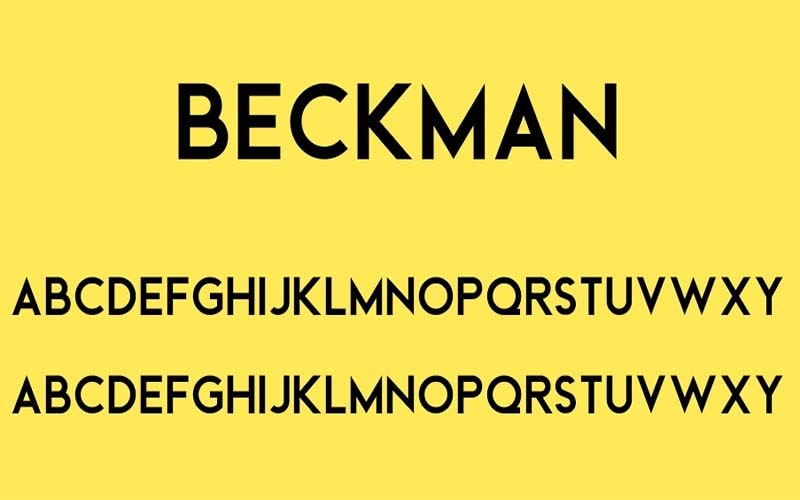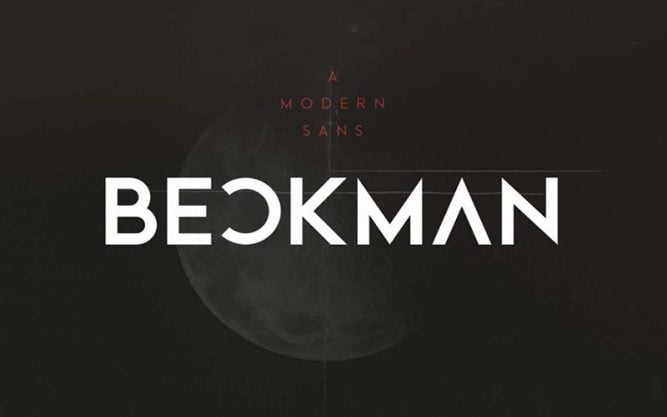
Beckman Font is a modern luxury sans serif typeface that has elegant texture due to its stylish bold strokes in a straight line. It was designed and published by Factory 738 for the first time.
This sans serif font family is available in a single modern style. There were combinations of minimal and geometric elements rendering a modern design and is available for download.
It is perfect for different purposes such as helping to create logo designs, banner advertising, branding visual identity, social media posters, company names, newspaper, and magazine headlines.
Actually its looks like the present-day typeface that attracts the readers. As a result, it has surpassed some popular fonts. and strengthen his position for various tasks. It is an elegant and special font family.
Beckman Font
| Font Name: | Beckman Font |
| Style: | Modern, Sans-serif, Typeface |
| Font Designer: | Wahyu Setiya Rahmawan |
Many designers proudly choose this beautiful font because they know that it will add a professional touch to your every type of design. Therefore, it is also compatible with your design.
Due to its normal weight, it can be used for different projects. Therefore, in projects, this typeface can also be used in different sections such as bold headlines, short text, and long paragraphs.